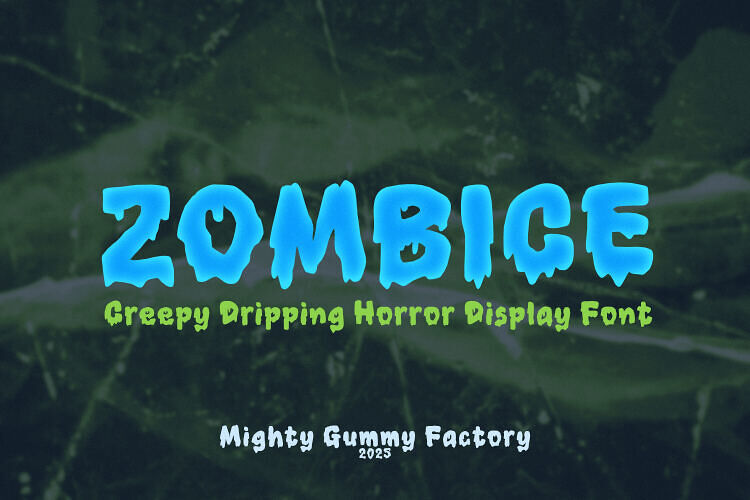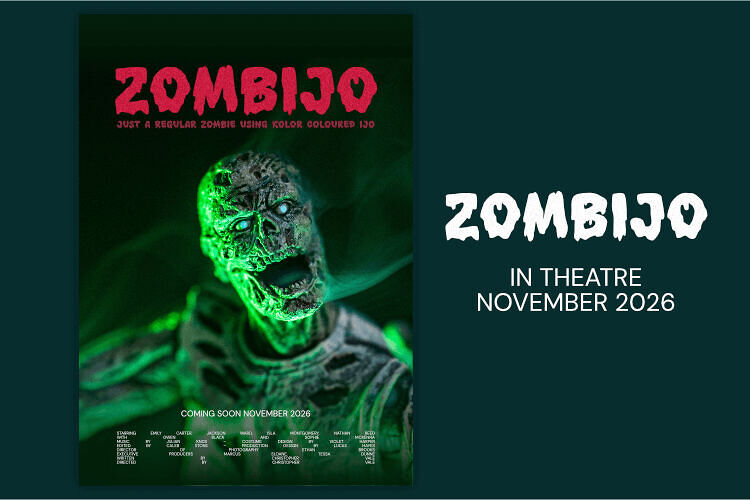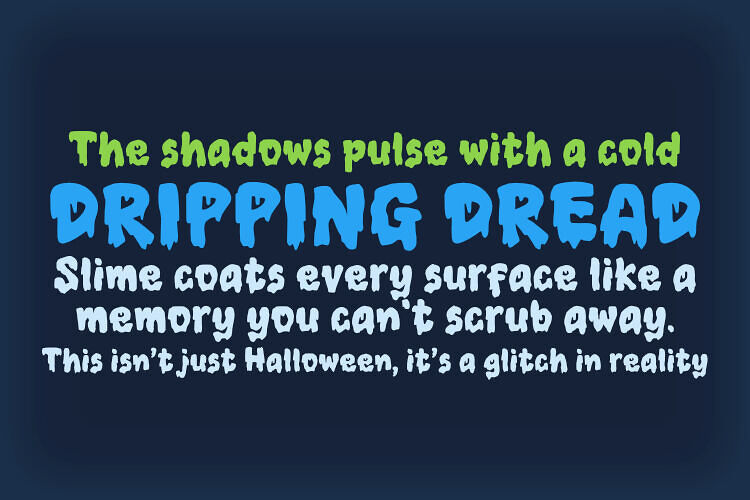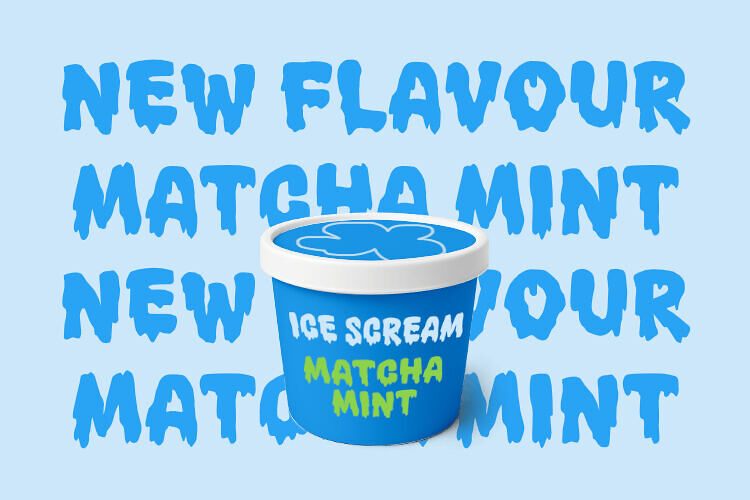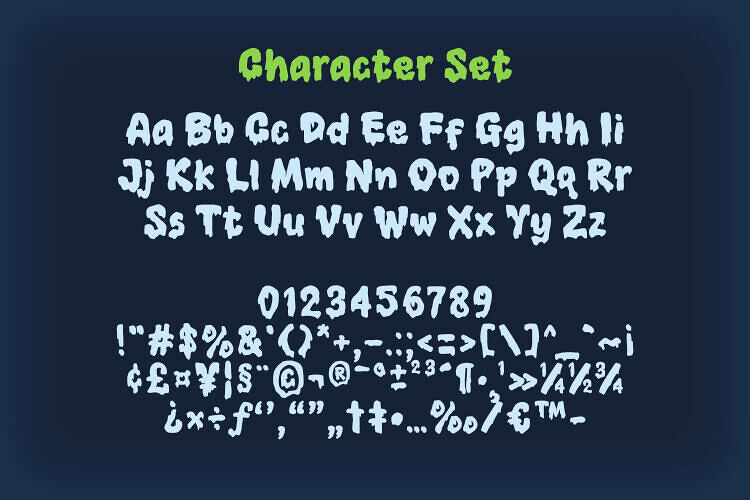
Zombice is a creepy dripping display font with a chilling mix of horror and icy slime vibes, making it perfect for Halloween posters, gaming designs, spooky logos, and merchandise. The bold, melting letterforms create a sense of mystery, fear, and fun, making it perfect for Halloween posters, gaming logos, scary movie titles, or spooky merchandise.